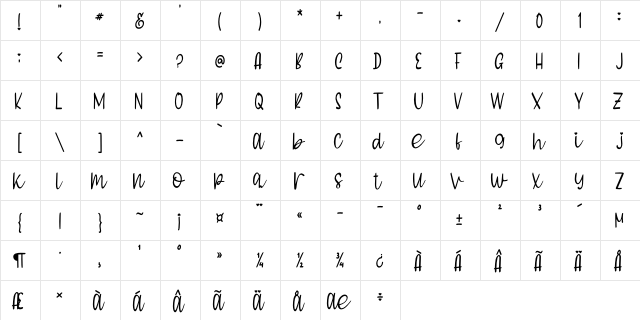
Falling Love Regular
| Designer | Sarwo Edhi Prayitno |
Design Context for Falling Love Typeface
Falling Love is a composed and adaptable typeface that performs quietly and consistently across a wide range of design contexts.